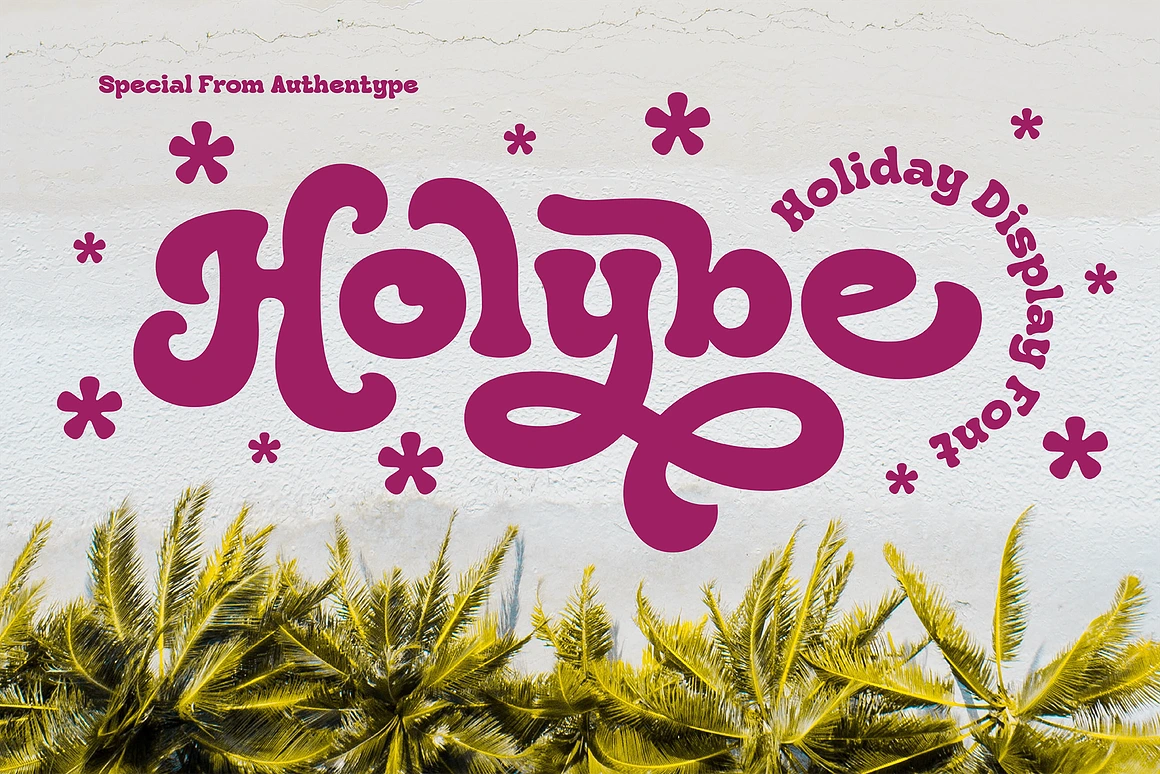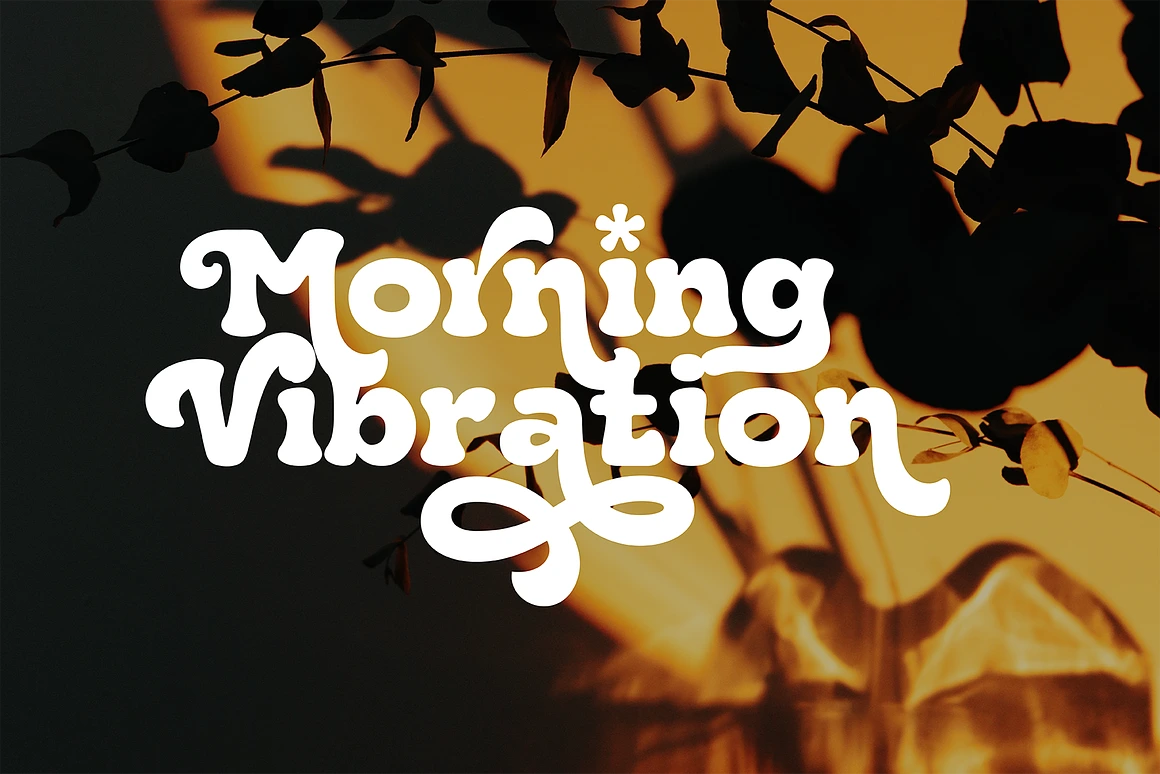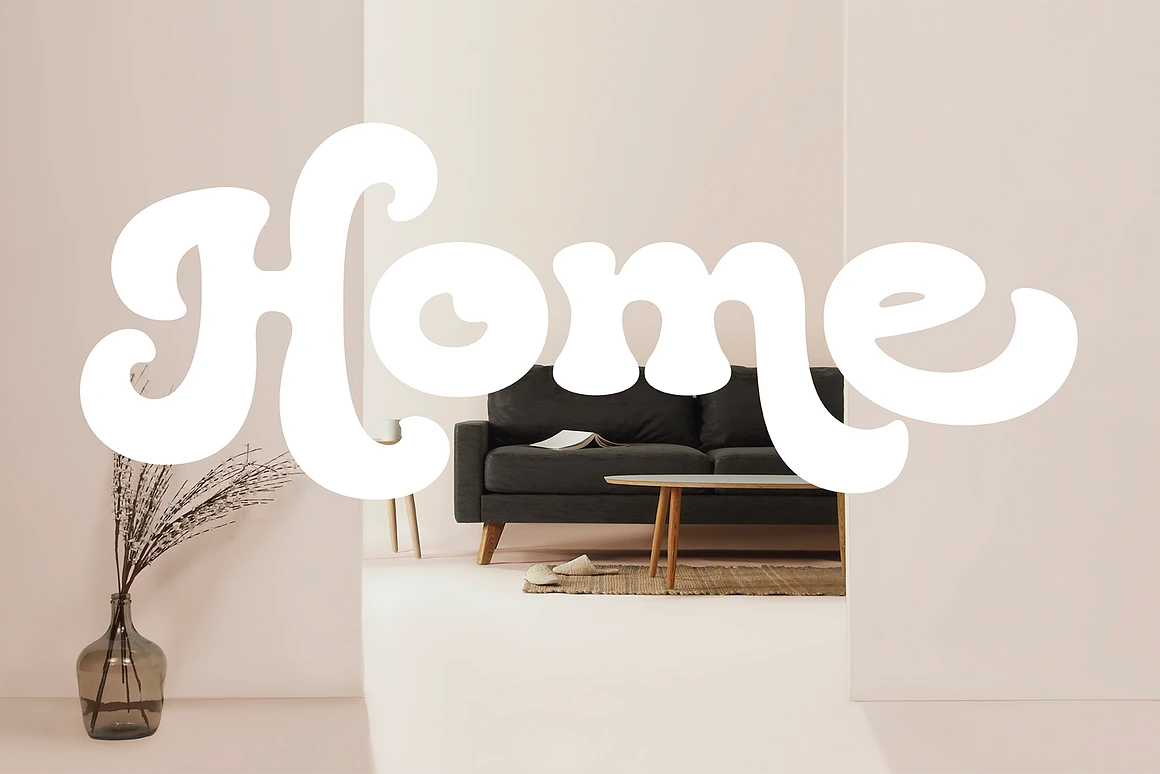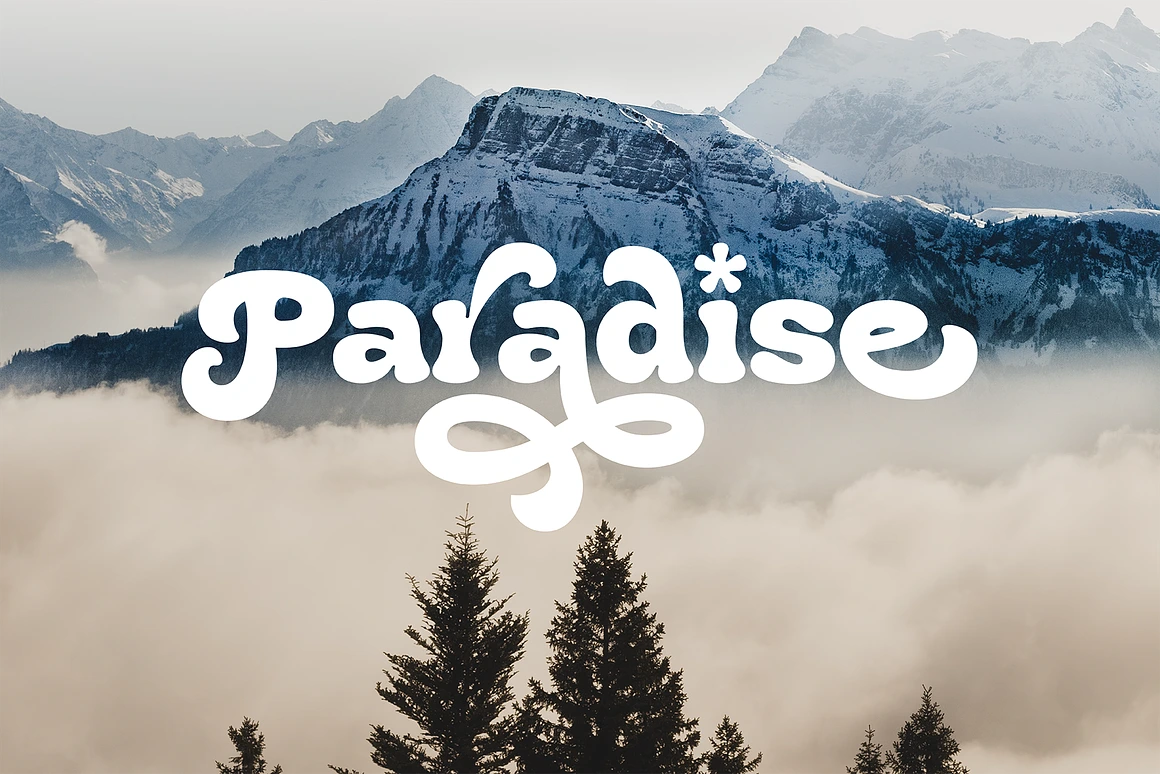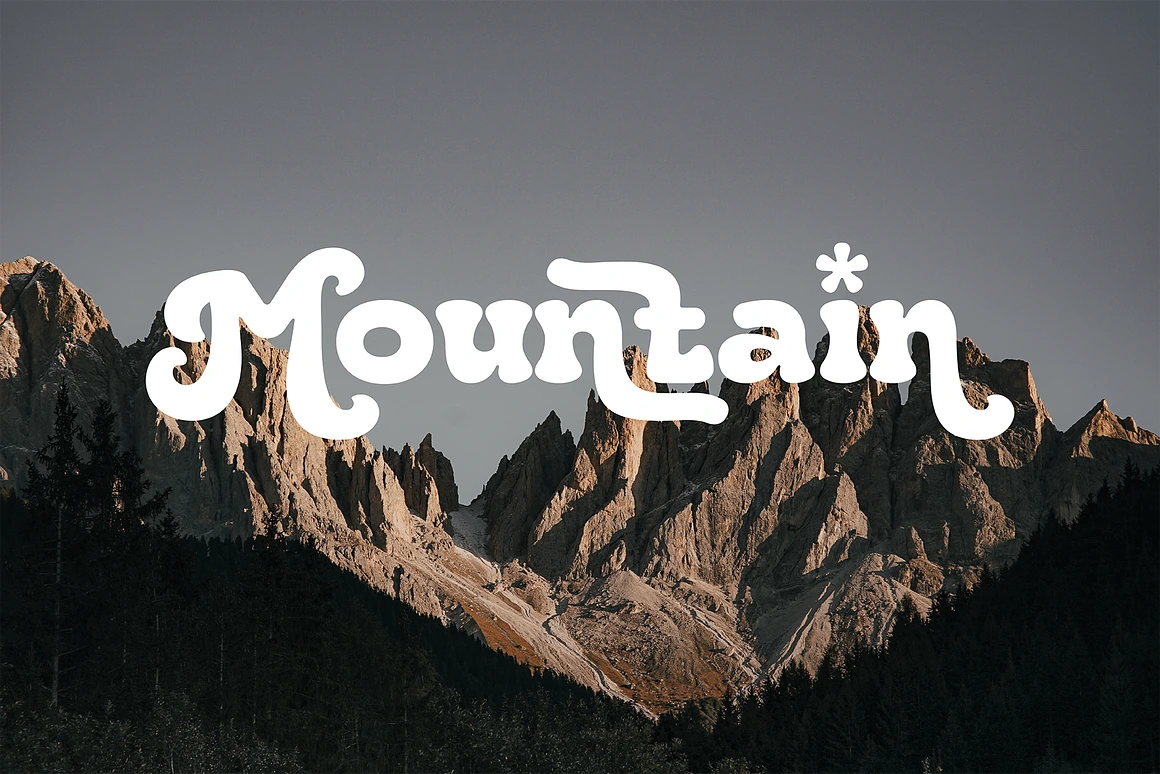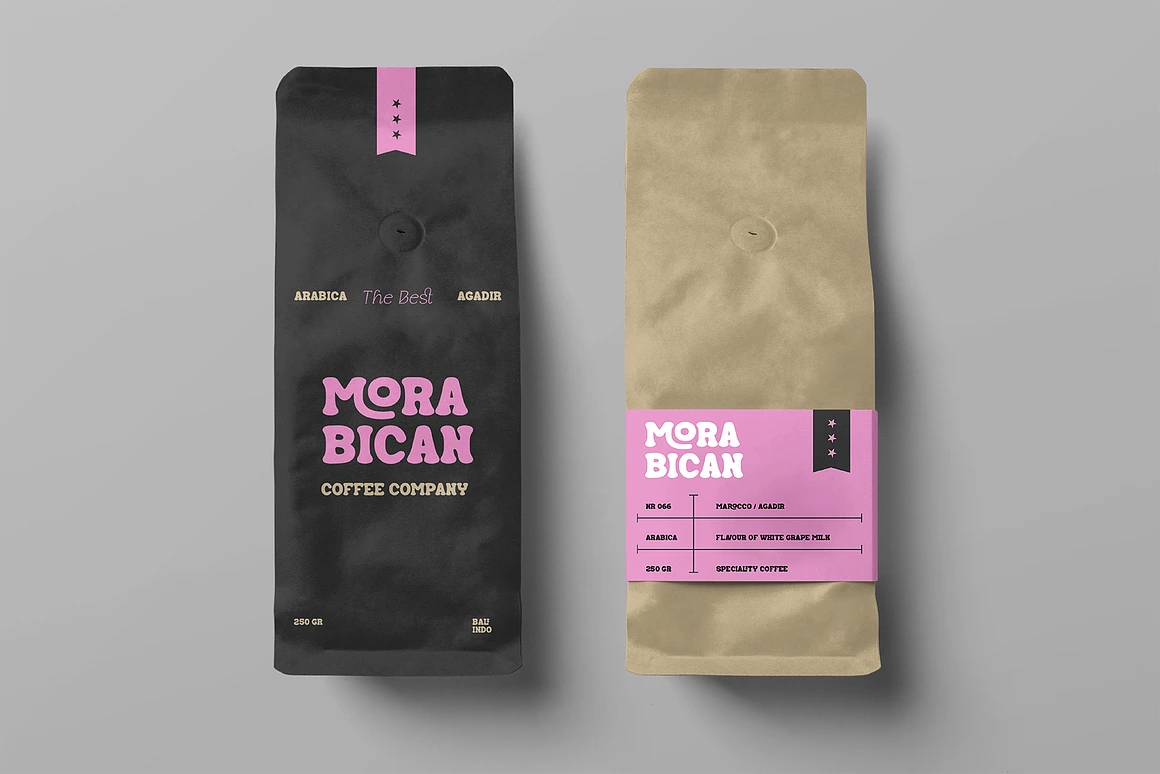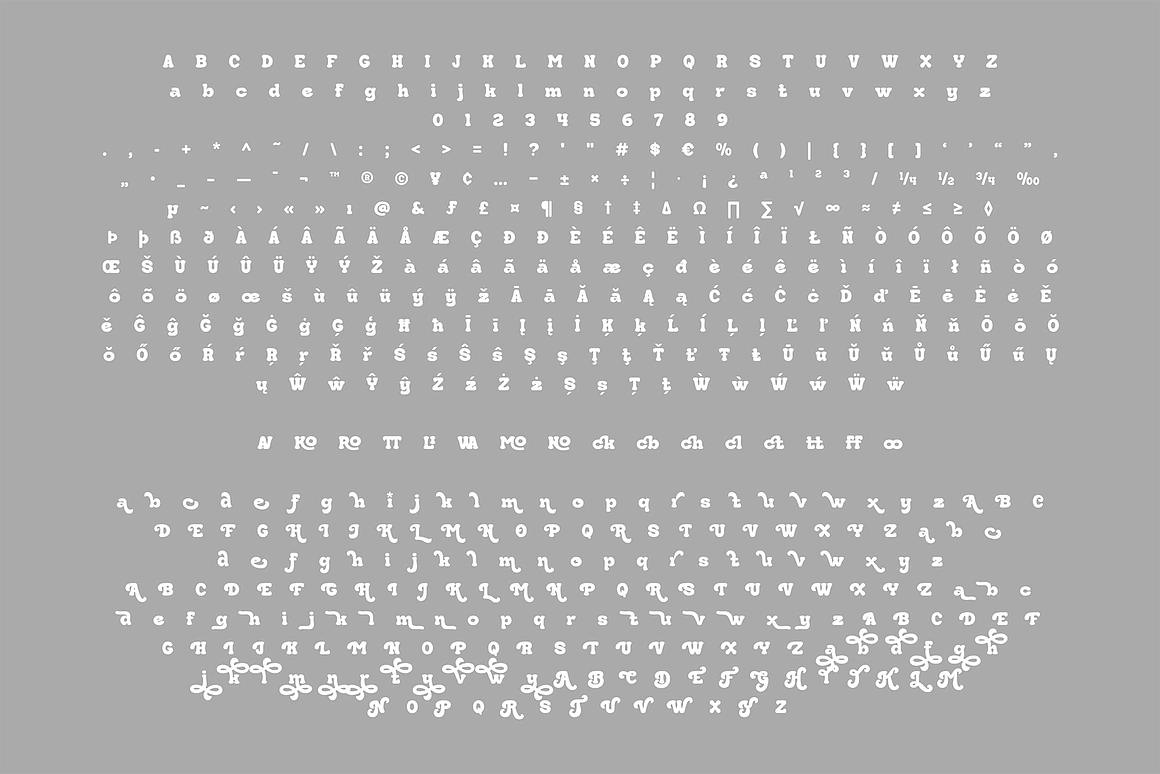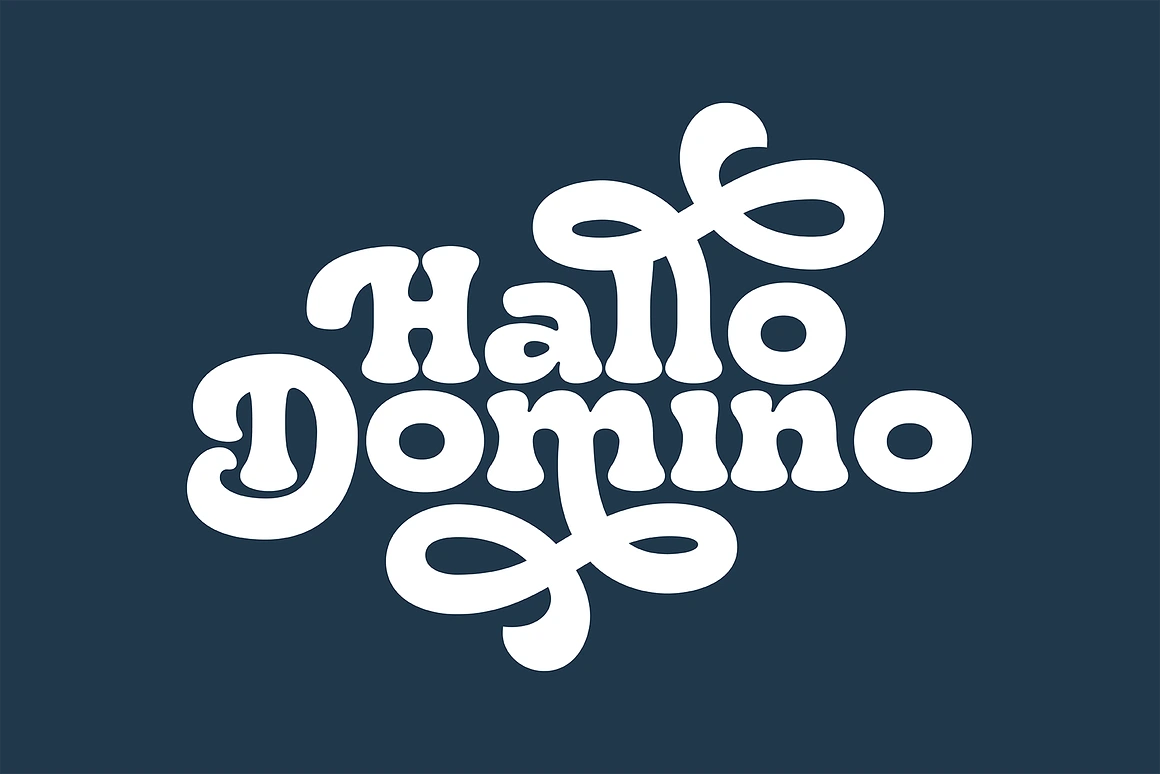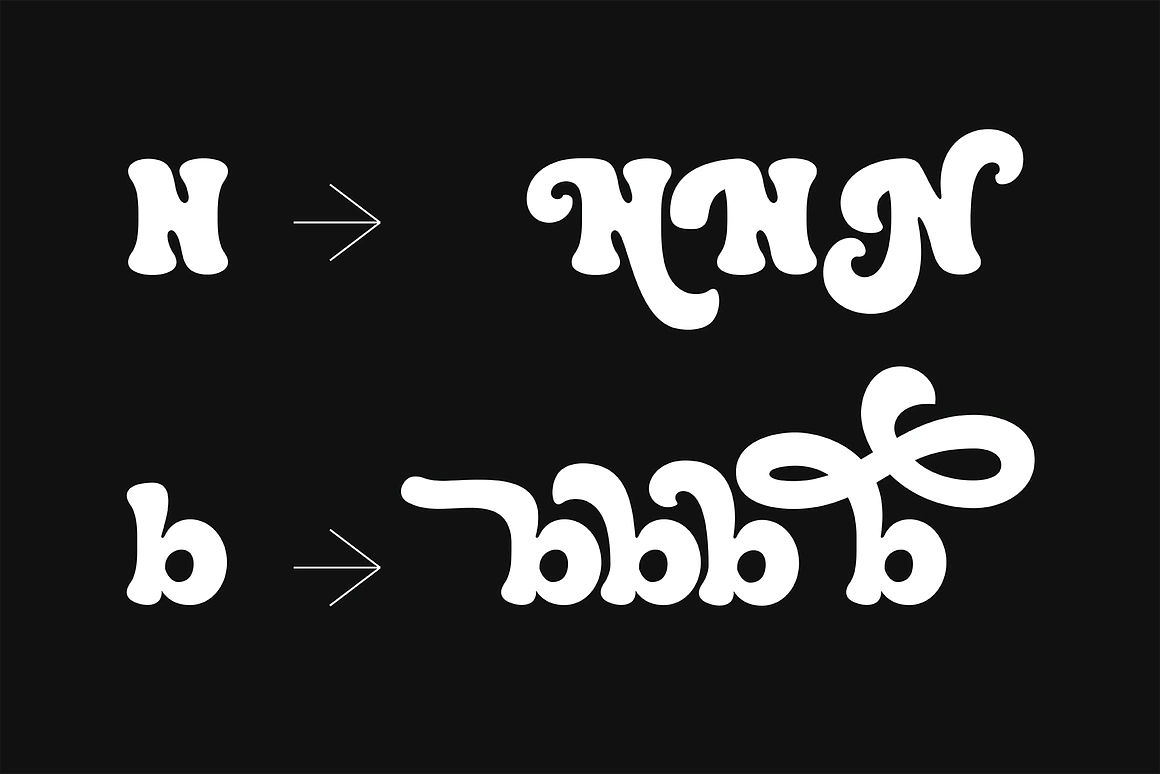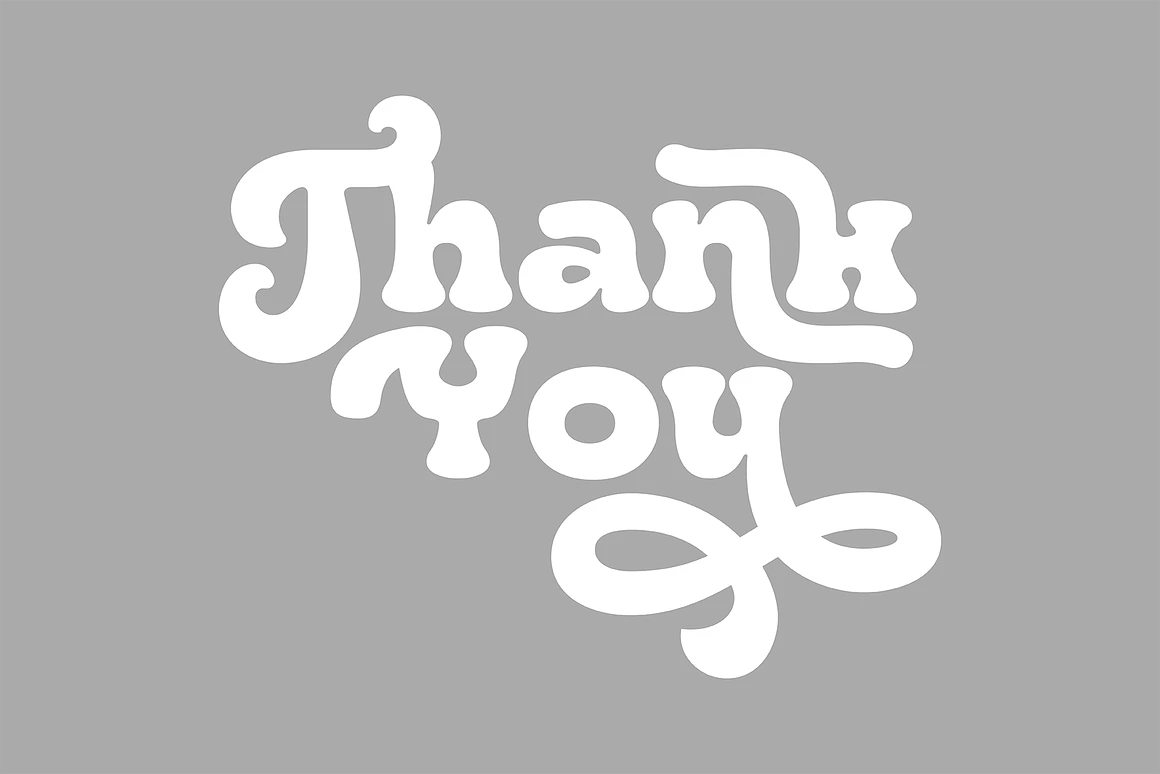
Holybe - Bold Display Font
Holybe
Holybe Bold Display Font is a lively and breezy tropical typeface with a lot of elegance and character. It comes with a lot of goodies, including an extended Latin character set, ligatures, stylistic alternate typography and more! With Holybe, you’re bound to make your work stand out in an instant.
* Multilingual support for; ä ö ü Ä Ö Ü ß ¿¡